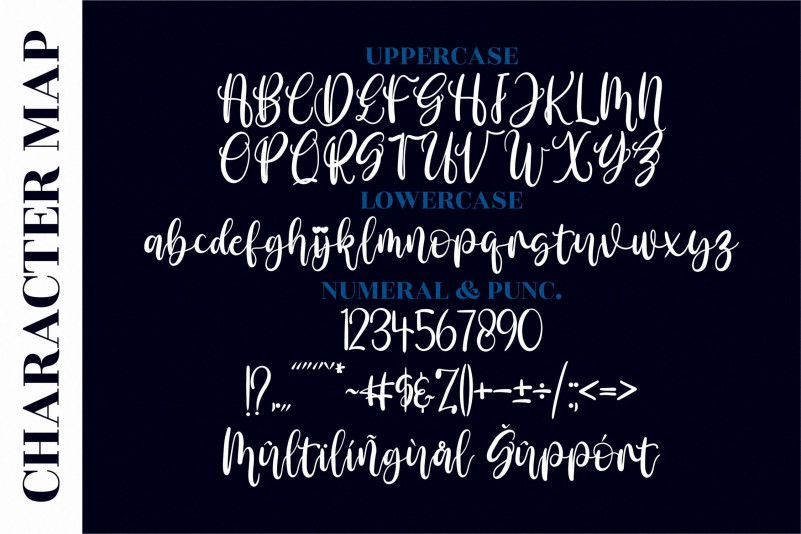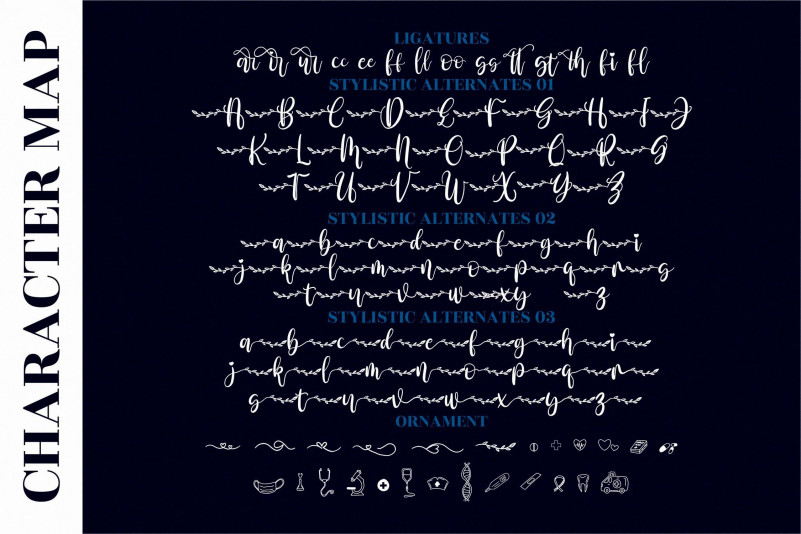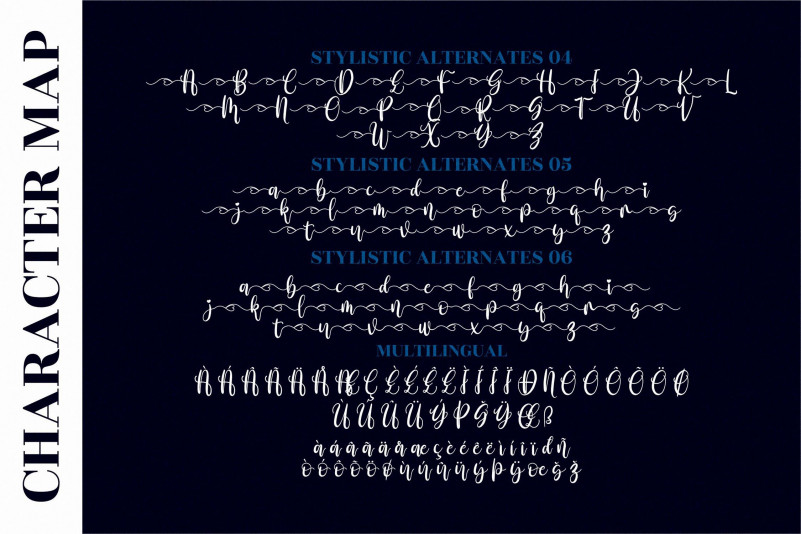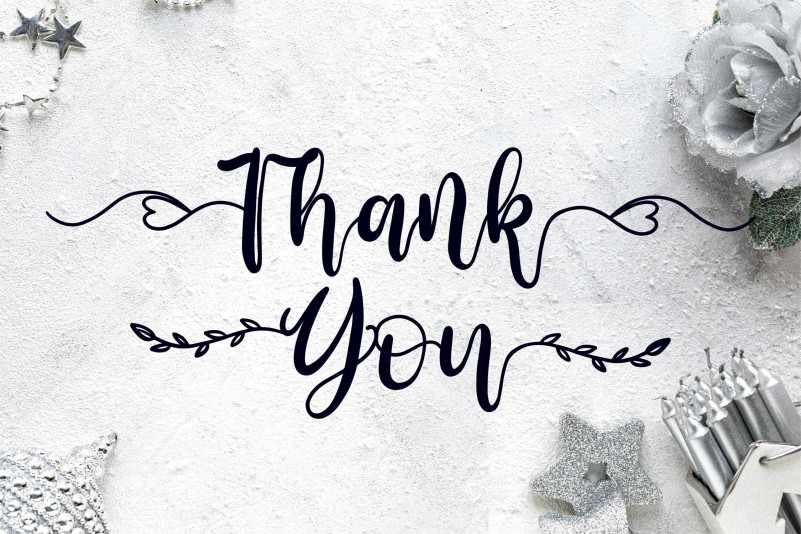
Amalia Nurse Calligraphy Font
This is a romantic and delicate script font that exudes elegance and class. This font was particularly crafted for those who need a beautiful and refreshing look to their designs.
Amalia Nurse is PUA encoded which means you can access all of the glyphs and swashes with ease!